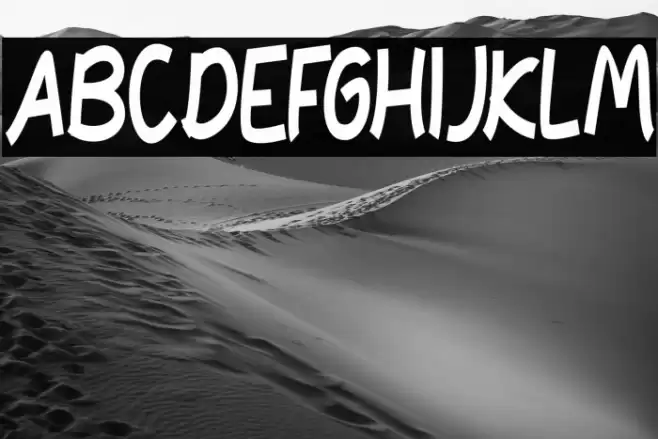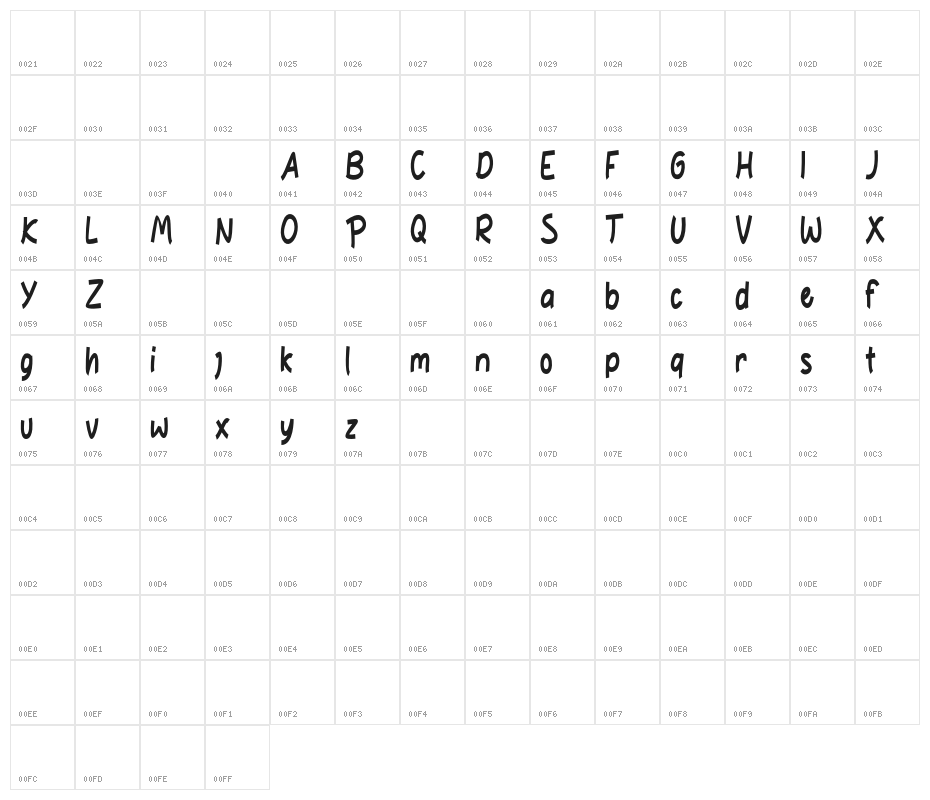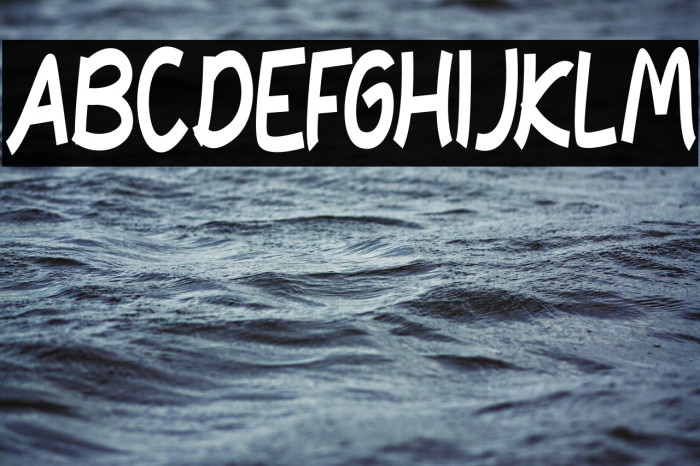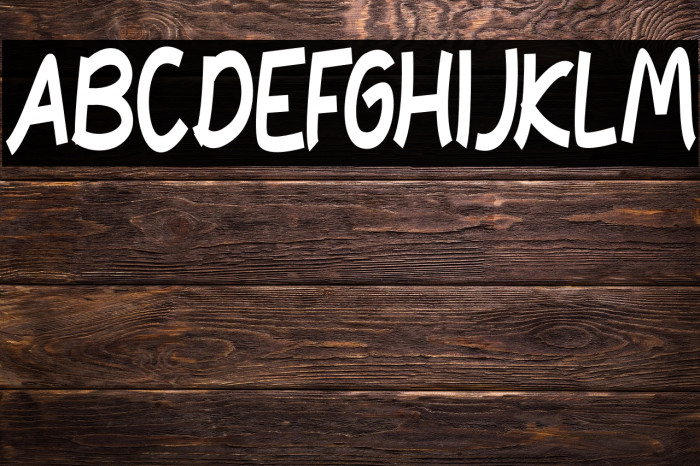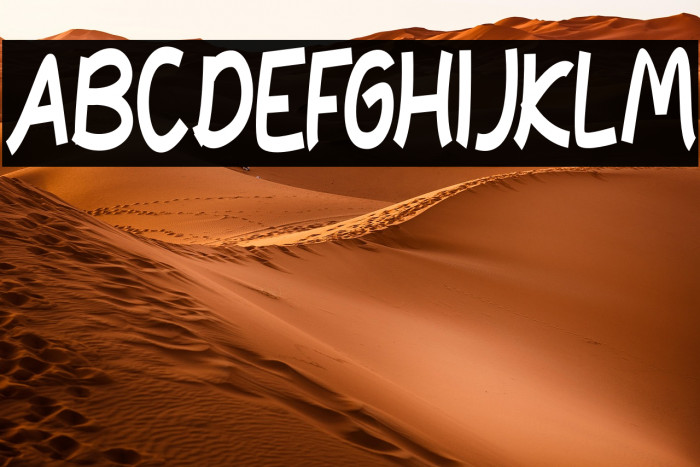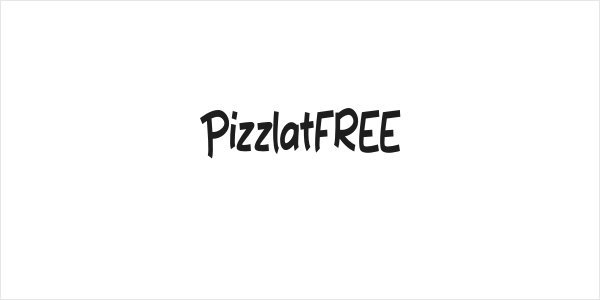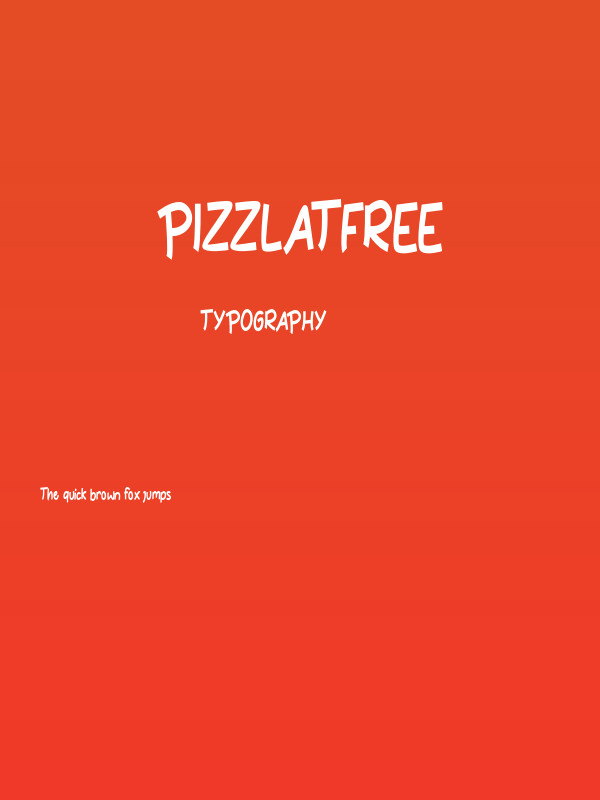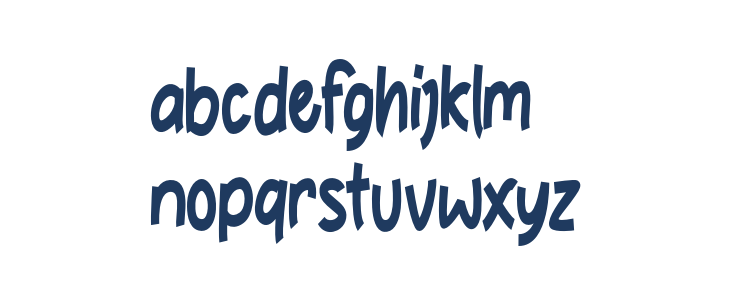
PizzlatFREE Font
PizzlatFREE Description
This font features a playful and energetic style with bold, rounded characters that convey a sense of fun and creativity. The uppercase letters are slightly taller and more pronounced, while the lowercase letters maintain a consistent flow with a slight slant, adding to the dynamic appearance. The strokes are thick and uniform, providing a strong visual impact. The font's informal and lively nature makes it suitable for projects that aim to capture attention and convey a sense of joy and spontaneity.
A bold, playful font with rounded, energetic characters from Comic fonts.
- Proposed Projects: Ideal for children's books, playful branding, party invitations, and creative posters.
- Overall Style: Playful